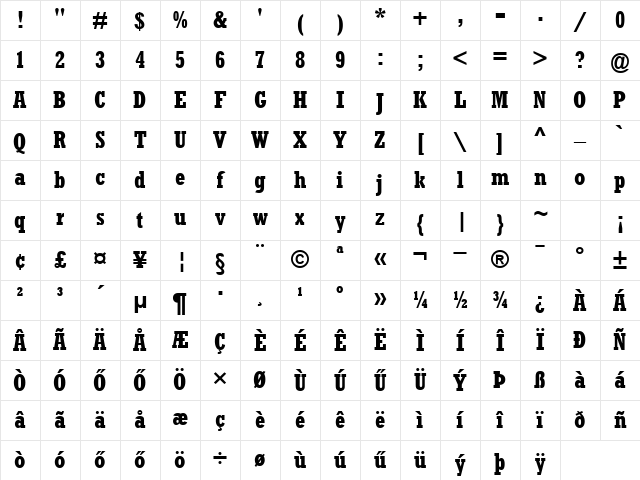
Complete H_Rockwell MT Regular glyph index. Displaying only characters natively supported by H_Rockwell MT Regular font.
H_Rockwell MT is a composed and adaptable typeface that performs quietly and consistently across a wide range of design contexts.
Pro Tip: Use H_Rockwell MT in both headline and body roles to test its range before committing to a single application.